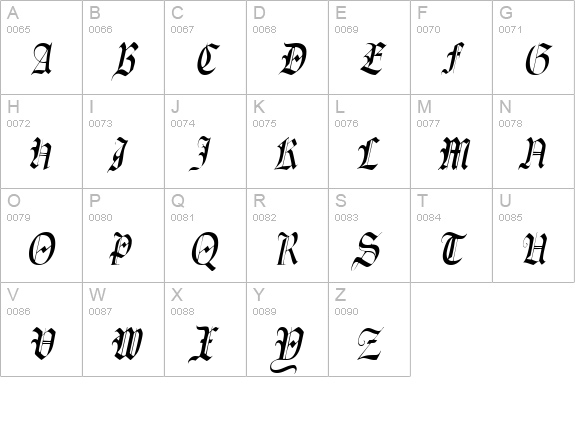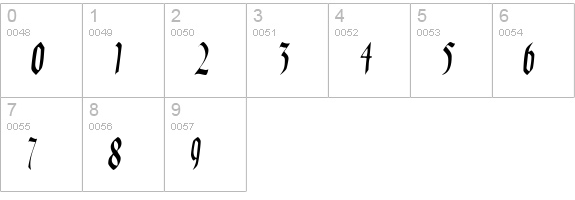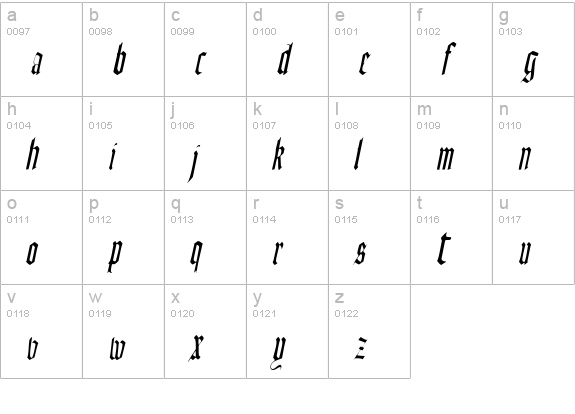
AinsworthSSK Italic is a distinctive, italic variant in the AinsworthSSK typeface family \xE2\x80\x94 well suited to design and typography projects.
AinsworthSSK Italic font is a sleek and stylish typeface that exudes elegance and sophistication. With its slanted design and graceful curves, this font is perfect for adding a touch of flair to your projects. Whether you're designing invitations, logos, or promotional materials, AinsworthSSK Italic will make your text stand out with its unique charm. The best part? AinsworthSSK Italic font is available for free download at FontsMarket.com. This means you can easily access this beautiful font and use it in your creative endeavors without any cost. Don't miss out on the opportunity to enhance your designs with the beauty of AinsworthSSK Italic - download it now and let your creativity shine!